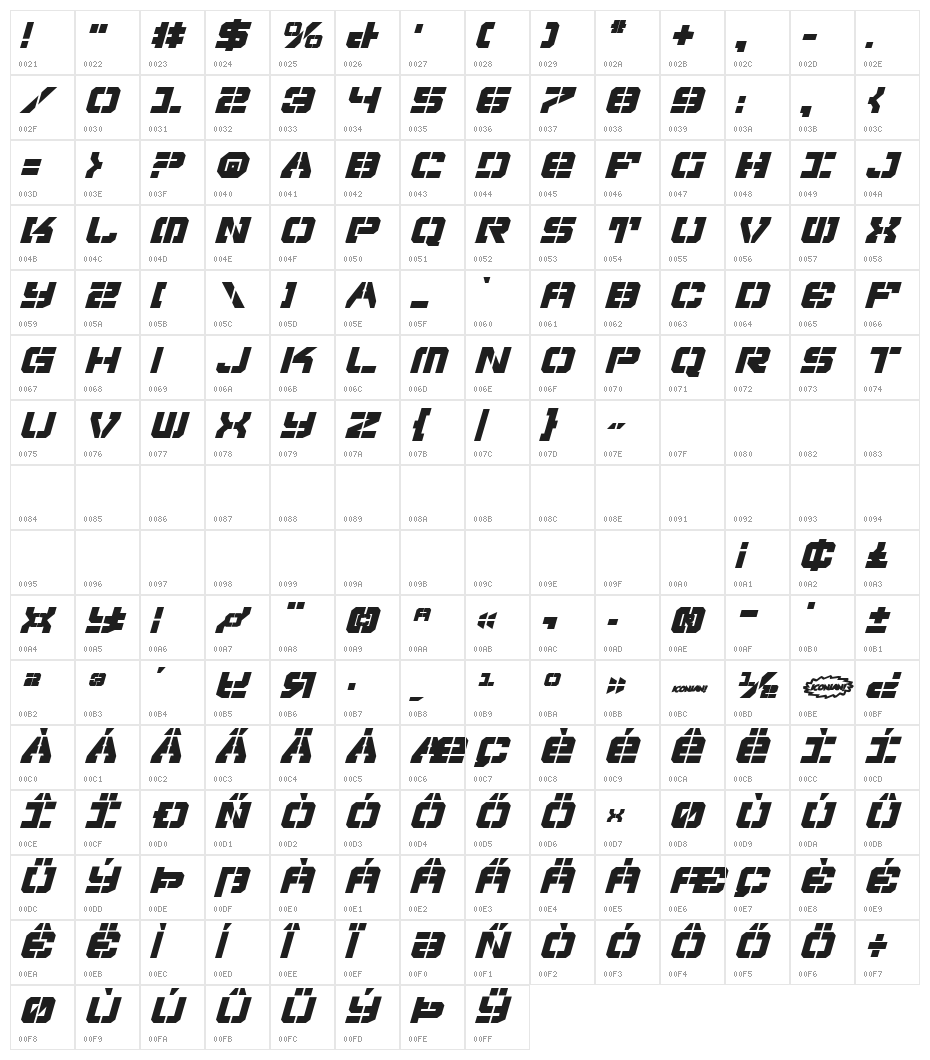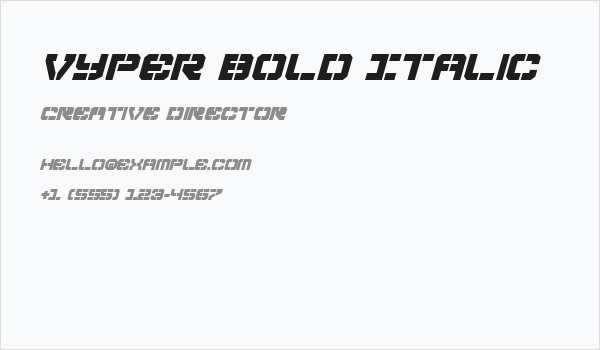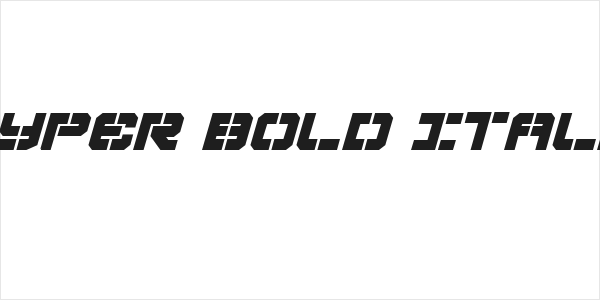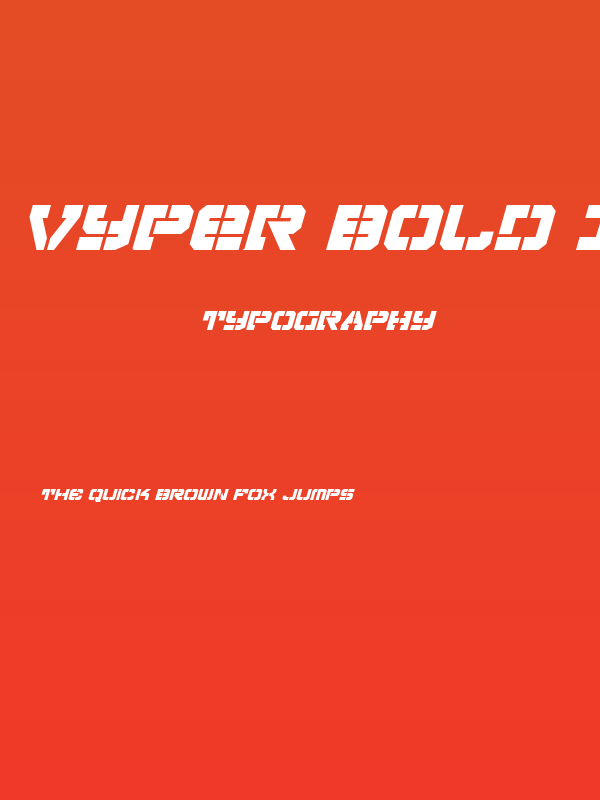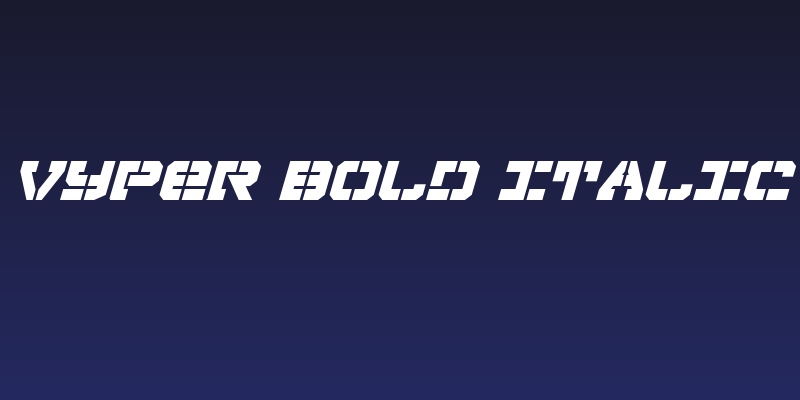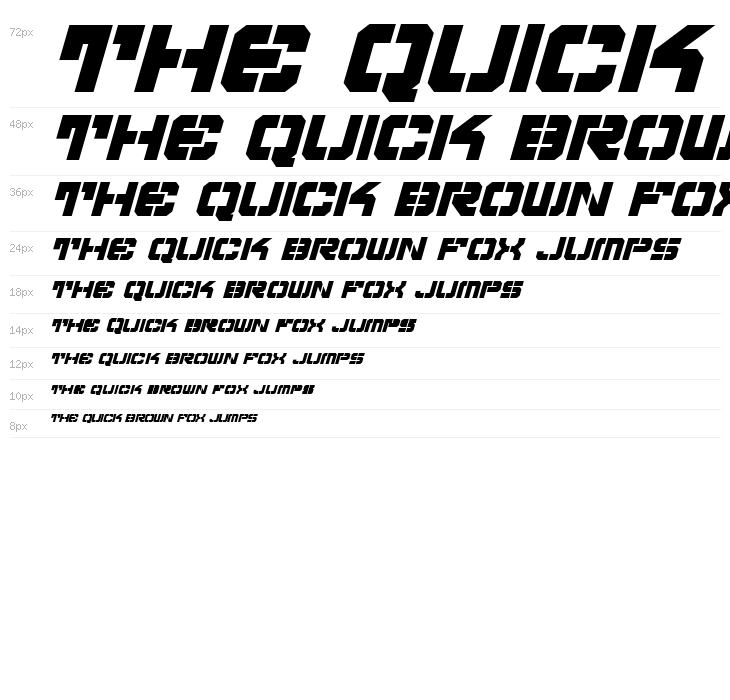
Vyper Bold Italic Font
Vyper Bold Italic Description
This font features a bold and italicized style with a futuristic and angular design. The characters are sharply cut with a distinct slant, giving them a dynamic and aggressive appearance. The uppercase and lowercase letters maintain a consistent style, with the uppercase being more prominent and commanding. Numbers and special characters follow the same angular and bold design, ensuring uniformity across all elements. The font's unique style makes it suitable for projects that require a modern and edgy look.
| Proposed Projects | Ideal for sci-fi themed designs, video game titles, tech branding, and dynamic posters. |